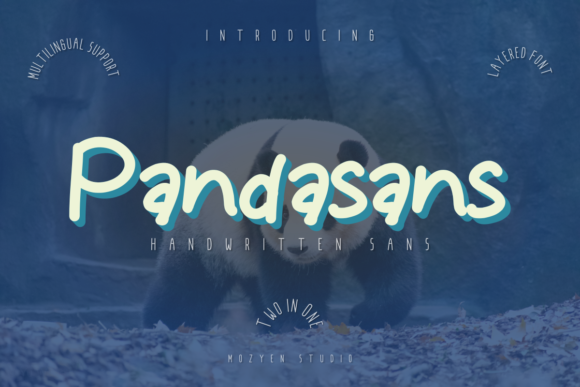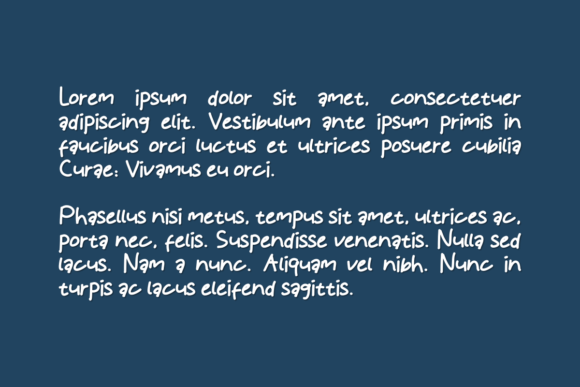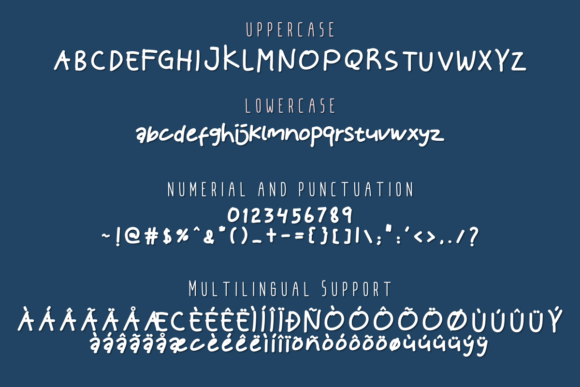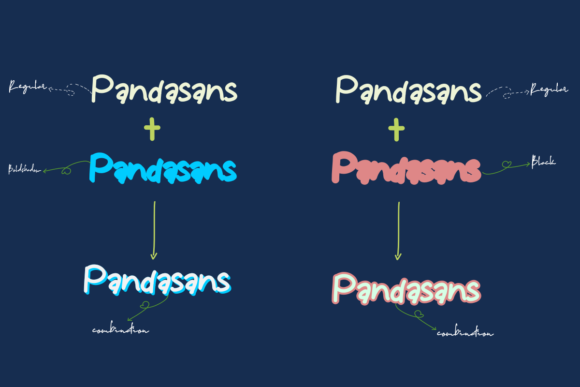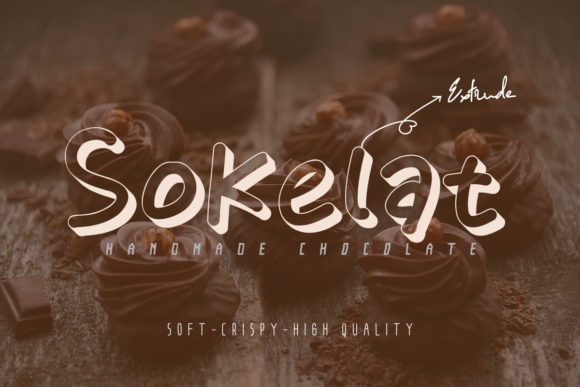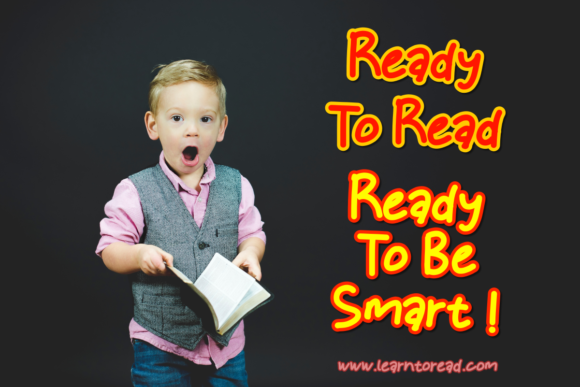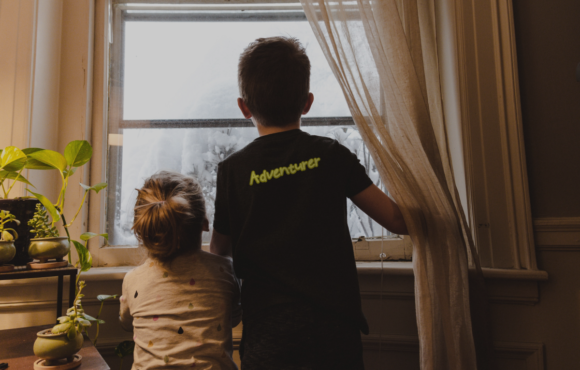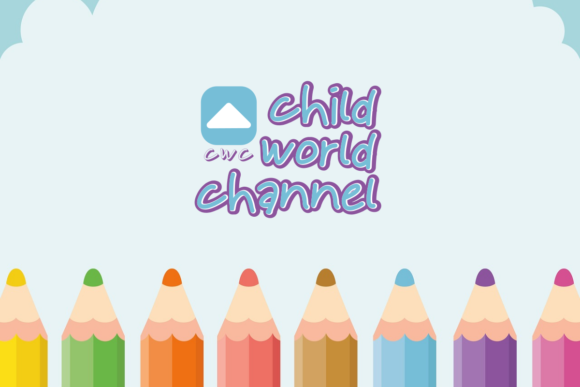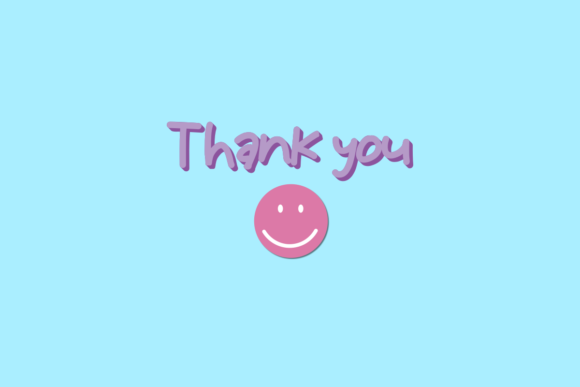
Pandasans Font
About Pandasans Font
Pandasans is a handwritten sans font. It has a fun and attractive look that will take your designs to the next level!